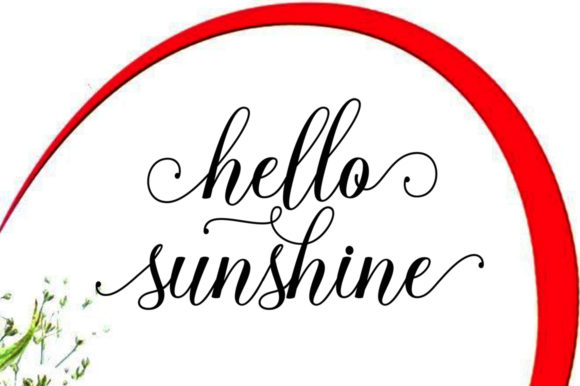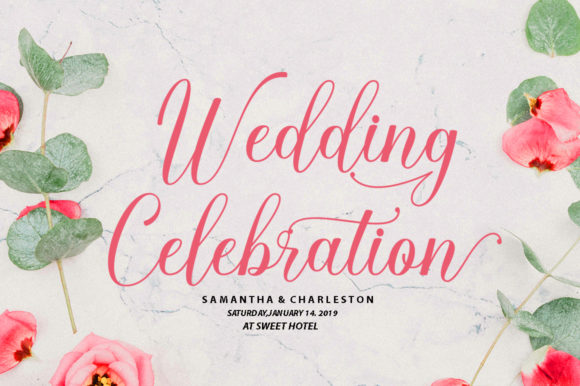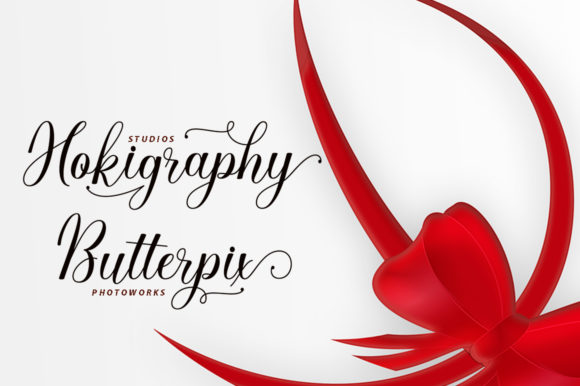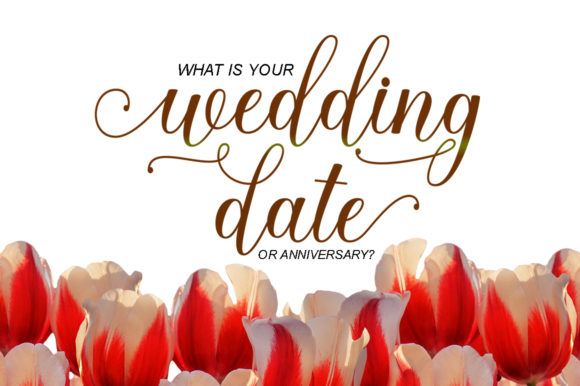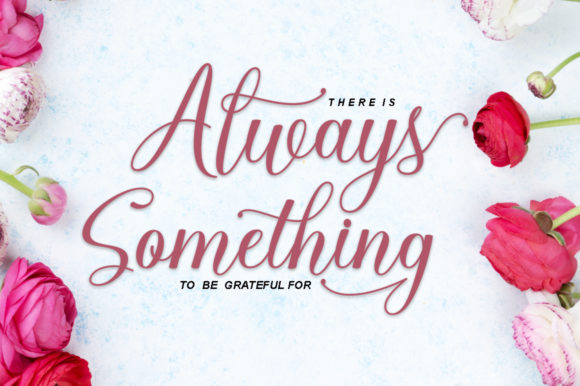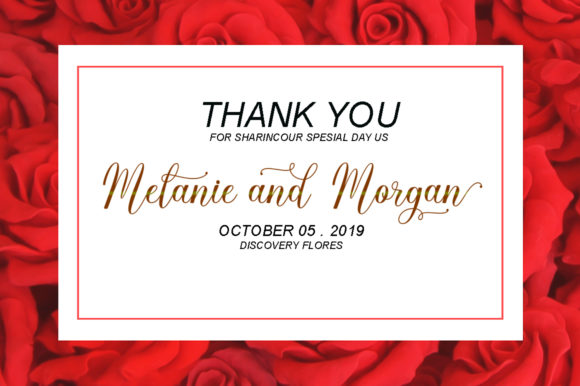
Introduction to Melly Script Font
Have you ever stared at a blank canvas, waiting for the perfect idea to strike? For designers, this moment is all too familiar. It’s the spark that sets our creative project ablaze, and the thrill of watching our vision come to life is unmatched. Today, we’re excited to share a design resource that will elevate your work to new heights: the Melly Script Font.
This beautiful modern calligraphy script is a game-changer for any creative project. With its stunning swashes and elegant touch, it’s perfect for logos, product packaging, wedding invitations, and more. What sets Melly Script Font apart is its versatility – it’s just as stunning on a transparent background as it is on a bold, colorful design. Whether you’re a seasoned designer or just starting out, this high-quality font is a must-have in your design arsenal.
Key Features of Melly Script Font
- Handwritten and cursive design perfect for creative projects requiring a personal touch.
- High-quality design resource ideal for various applications, including invitations, quotes, and more.
- Comes with a transparent background, allowing for seamless integration with any design.
- Features a large character set, with over 200 glyphs, making it suitable for a wide range of languages.
Honest Review: Melly Script Font
I recently stumbled upon the Melly Script Font while searching for a high-quality design resource for a creative project. As a designer, I appreciate finding free downloads that can elevate my work without breaking the bank. The Melly Script Font definitely fits the bill.
One of the standout features of this font is its elegant and refined aesthetic. It’s perfect for adding a touch of sophistication to any design. I particularly like the way it looks with a transparent background, which really lets the letters shine.
- ✨ Elegant and refined aesthetic
- ✨ Free download available, making it an excellent design resource
- ⚠️ Limited font styles available (only a few weights)
- ⚠️ May not be suitable for projects that require a lot of bold text
Overall, I’m really impressed with the Melly Script Font. It’s a great addition to any designer’s toolkit, and I would definitely recommend it for creative projects where a high-quality, elegant font is needed.
Tips for Getting the Most Out of Melly Script Font
To get the most out of Melly Script Font, use it in creative projects where you want to add a touch of elegance or sophistication. Experiment with different font sizes, colors, and backgrounds to create unique and eye-catching designs. The font’s high-quality design makes it perfect for design resources, such as invitations, social media graphics, or marketing materials.
Melly Script Font is perfect for a variety of creative projects, including invitations, social media graphics, marketing materials, and presentations. The font’s high-quality design and transparent background make it easy to use on any background, allowing for maximum design flexibility.
Alternatives to Melly Script Font
Pacifico is a high-quality script font perfect for creative projects, offering a beautiful, elegant feel. It’s ideal for use in invitations, wedding designs, and other romantic-themed projects. Pacifico is a free download and features a transparent background, making it easy to use in any design.
Compared to Melly Script Font, Pacifico has a more relaxed and casual feel, while Melly Script Font is more modern and sleek. Pacifico is also more versatile and can be used in a variety of design contexts, from fashion to food.
Great Vibes is a high-quality script font that’s perfect for use in creative projects that require a touch of elegance and sophistication. It’s ideal for use in designs for fashion, beauty, and lifestyle brands. Great Vibes is a free download and features a transparent background, making it easy to use in any design.
Is Melly Script Font suitable for high-quality design projects?
Yes, Melly Script Font is a high-quality design resource that’s perfect for creative projects. Its elegant and cursive script style makes it ideal for wedding invitations, branding, and other design projects that require a touch of sophistication. With its high-quality design and versatility, Melly Script Font is a great addition to any designer’s toolkit.